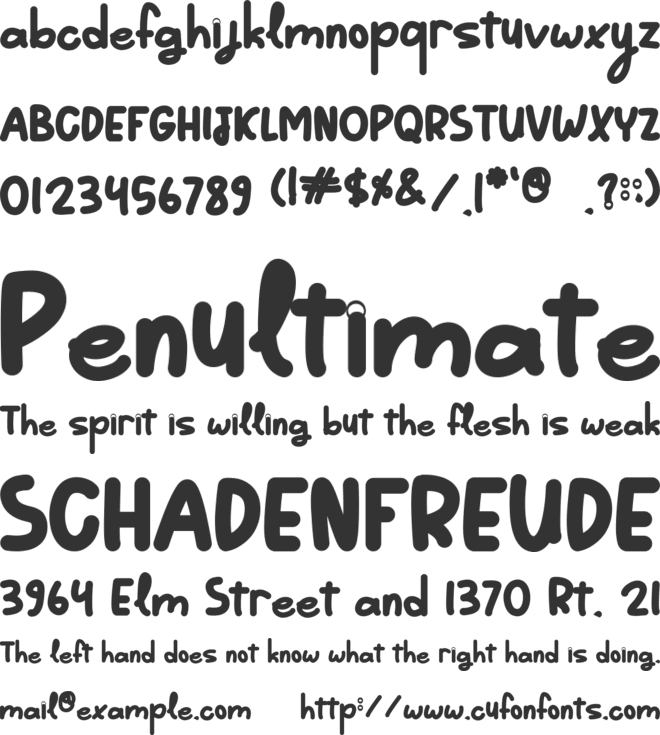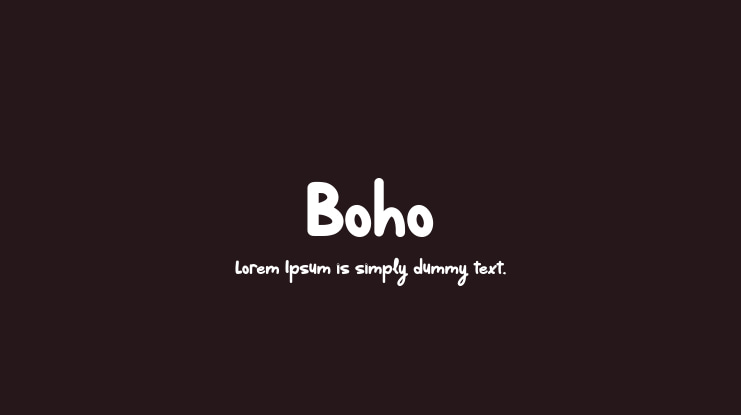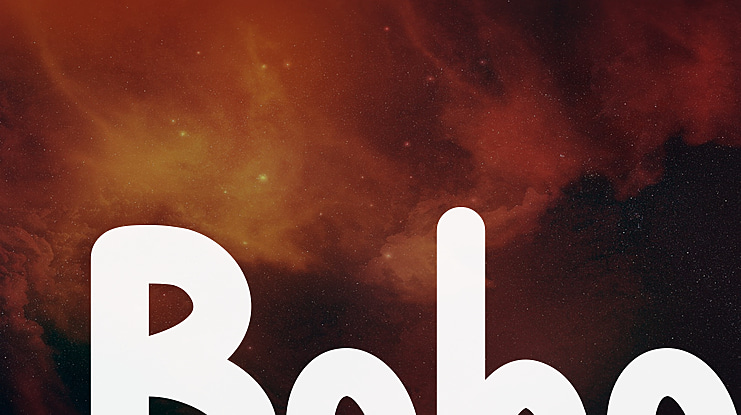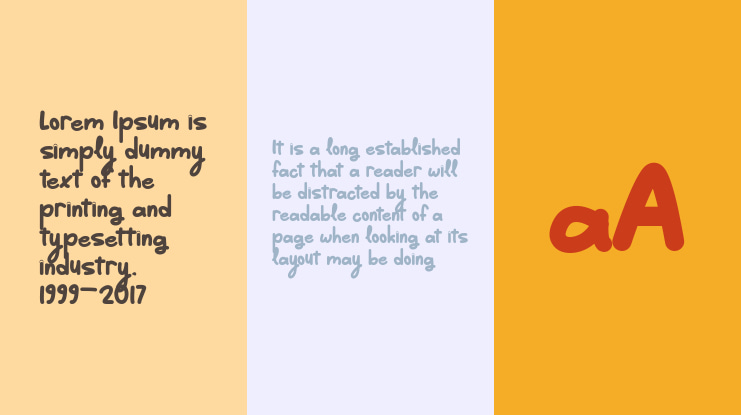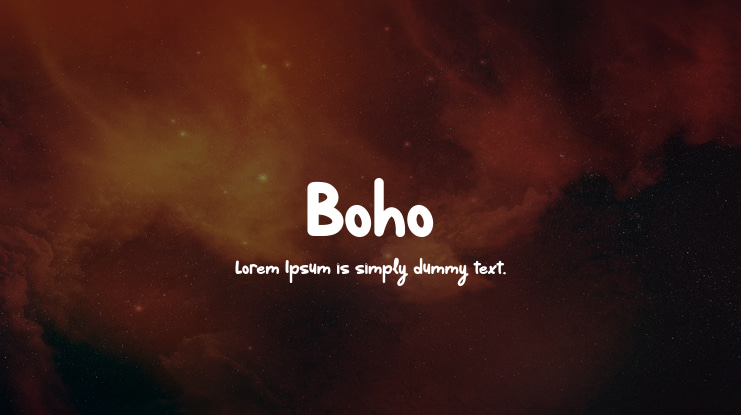
Boho Font
Boho is a cute, simple and paint brushed handwritten font. This original look will appeal to a wide range of crafty ideas, from letterheads and titles, to stationery.